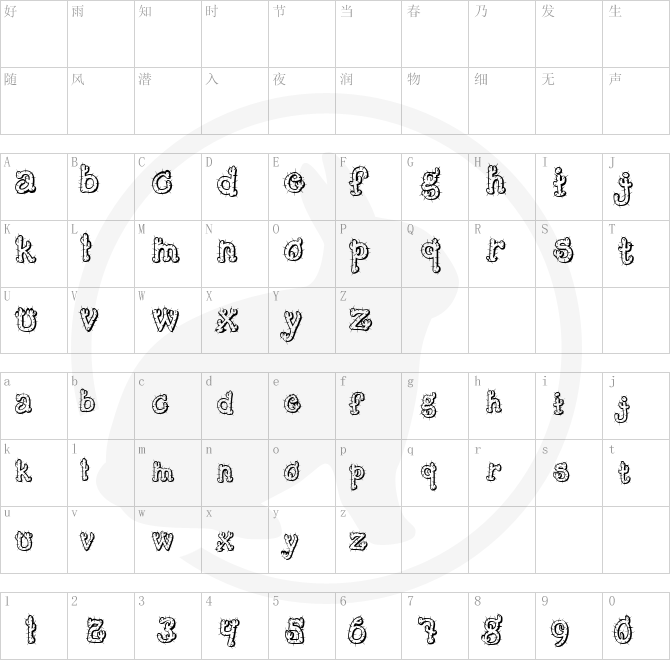
- Font Name:CactusSandwichFM
CactusSandwichFM.ttf is a very beautiful artistic font, CactusSandwichFM.ttf is widely used in the design and printing of various books and pictures,CactusSandwichFM.ttf has a strong visual impact,CactusSandwichFM.ttf is a commonly used font in newspapers, magazines and books, and is used in posters, e-commerce Poster design, store design, logo design, font design and other fields.CactusSandwichFM.